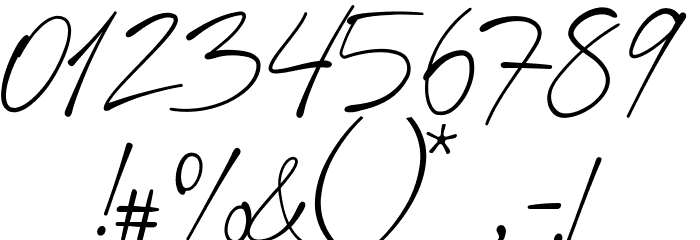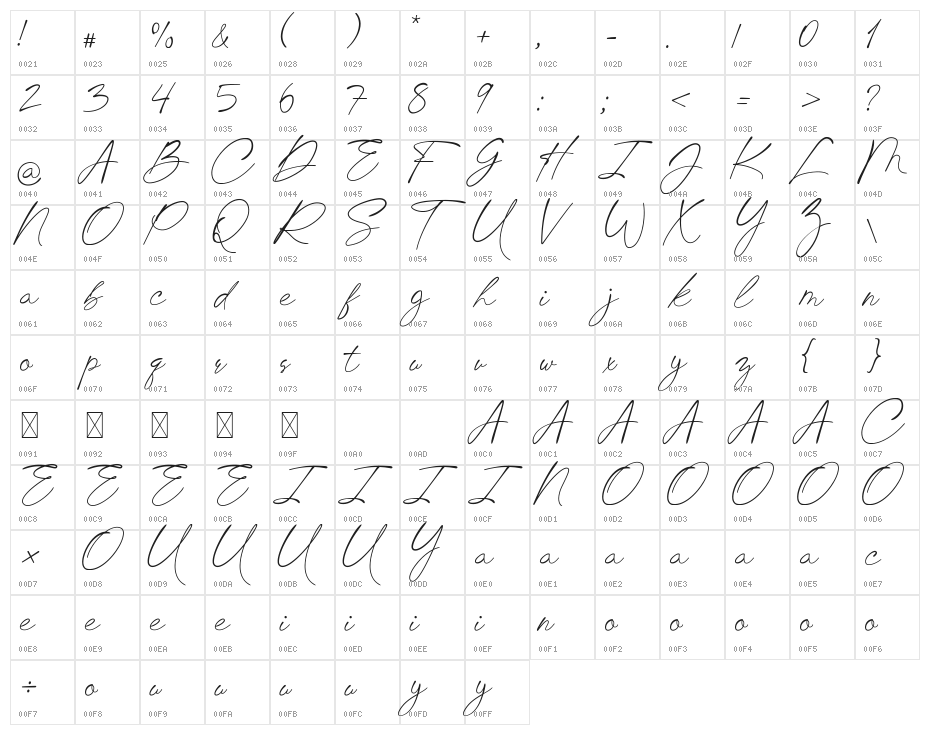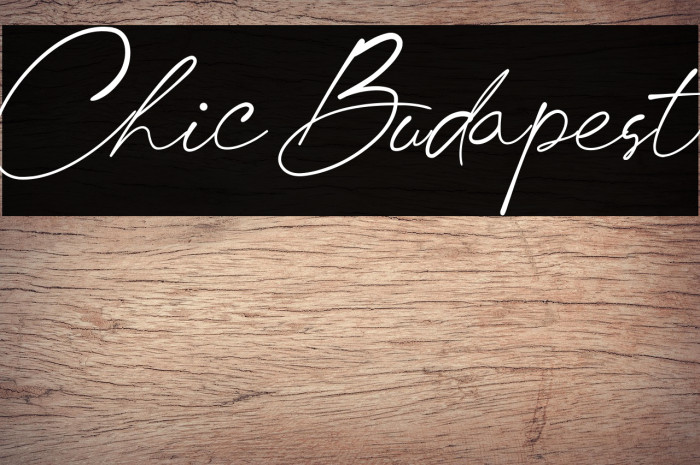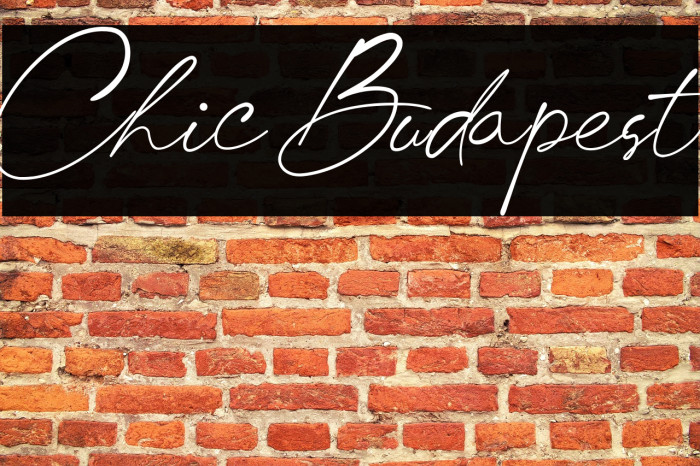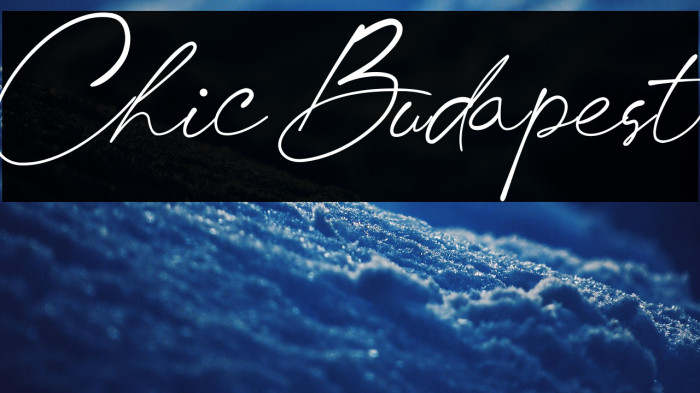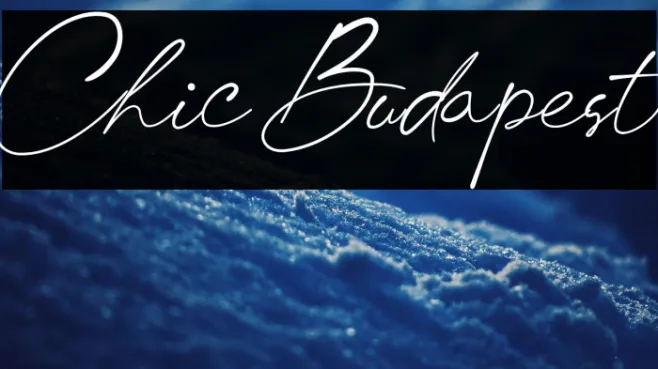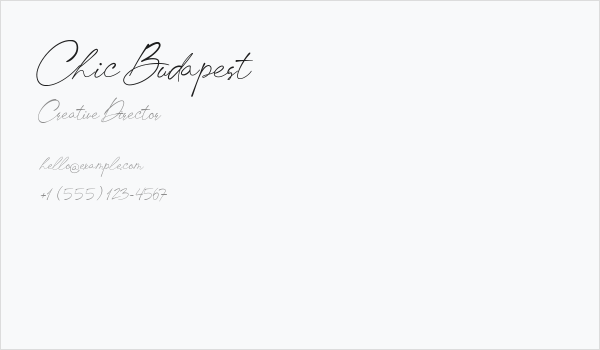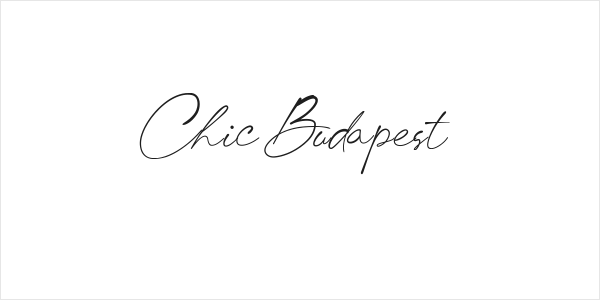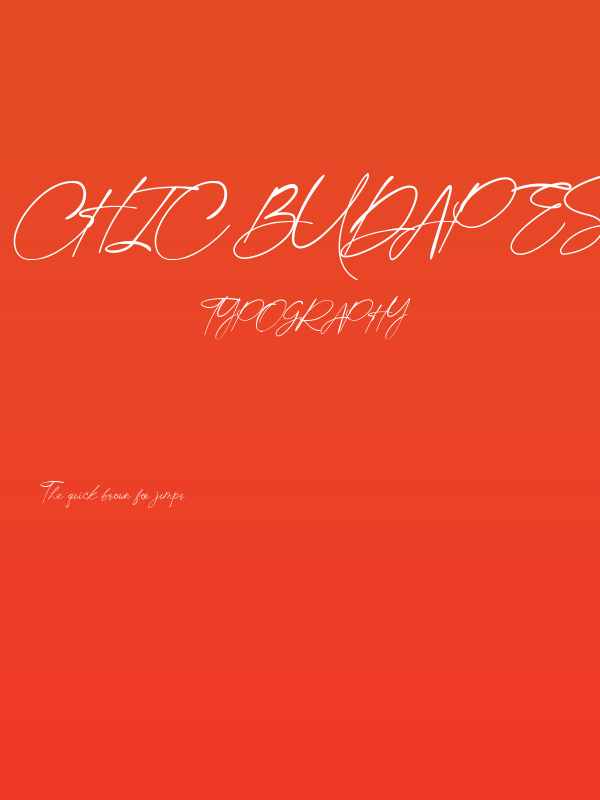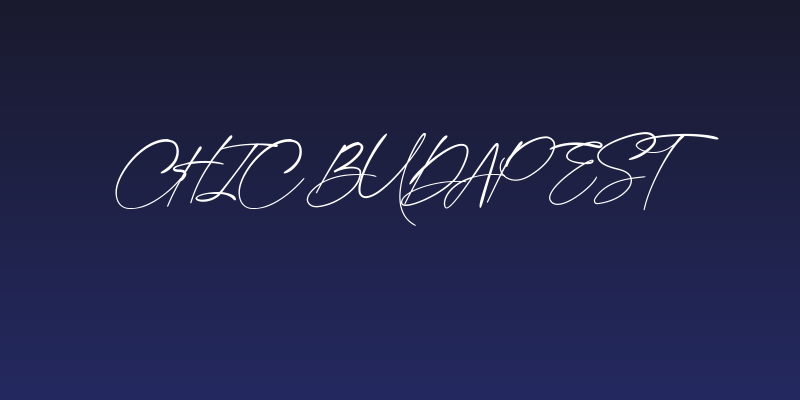
Chic Budapest Font
Chic Budapest Description
This font exudes elegance and sophistication with its fluid, cursive style. The letters are interconnected, creating a seamless flow that mimics natural handwriting. Each character is crafted with a delicate touch, featuring thin strokes and graceful curves. The uppercase letters are slightly more elaborate, adding a touch of formality, while the lowercase letters maintain a casual, approachable feel. The numerals and special characters are designed to complement the overall aesthetic, ensuring consistency throughout. This font is perfect for projects that require a personal, handwritten touch, such as invitations, greeting cards, or branding materials.
| Use Case | Invitations, Personal branding, Greeting cards |
| Proposed Projects | Ideal for wedding invitations, personal branding, greeting cards, and elegant stationery. |